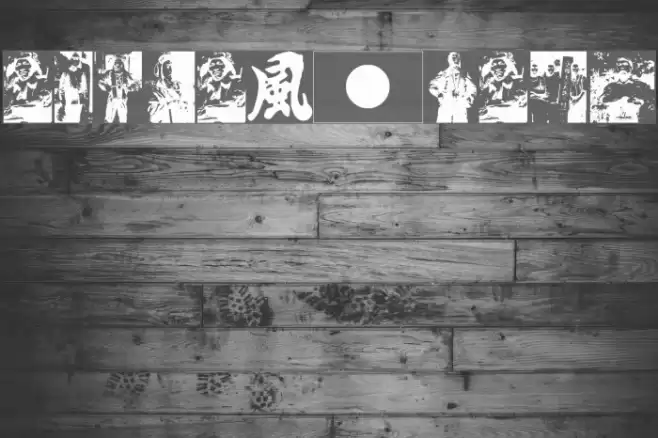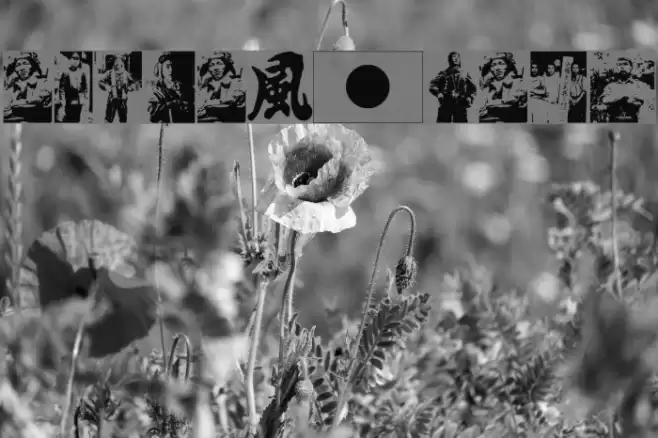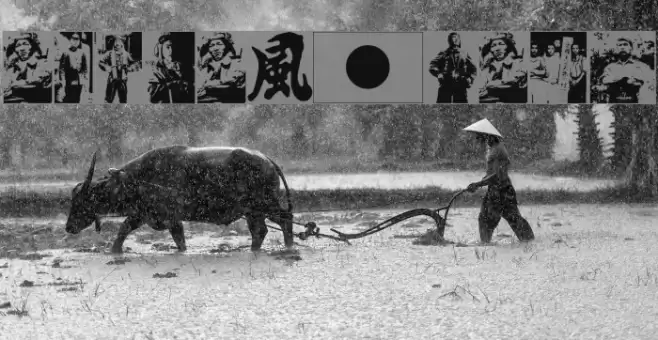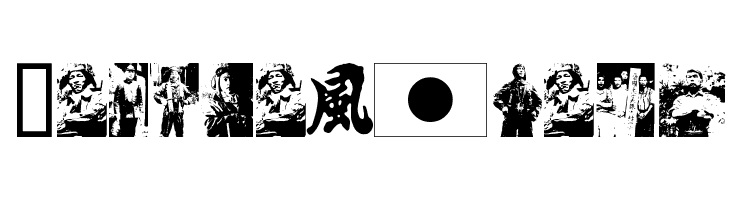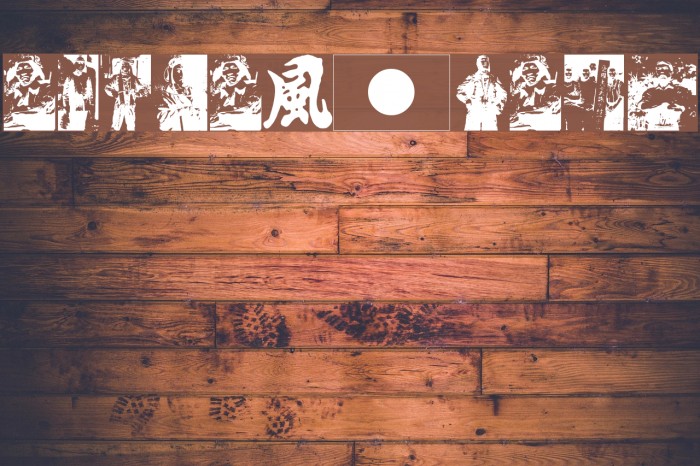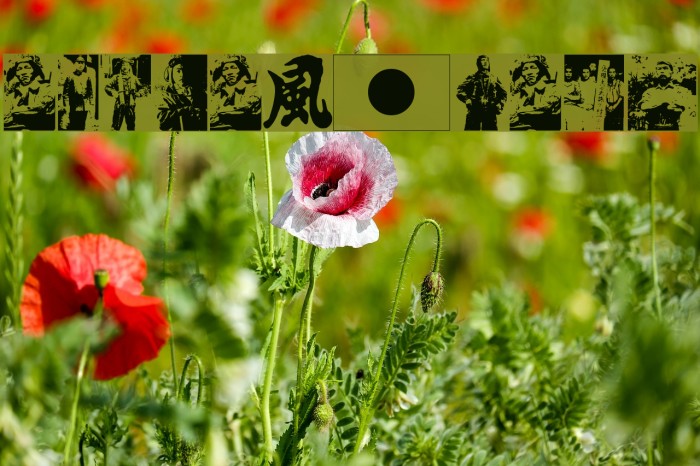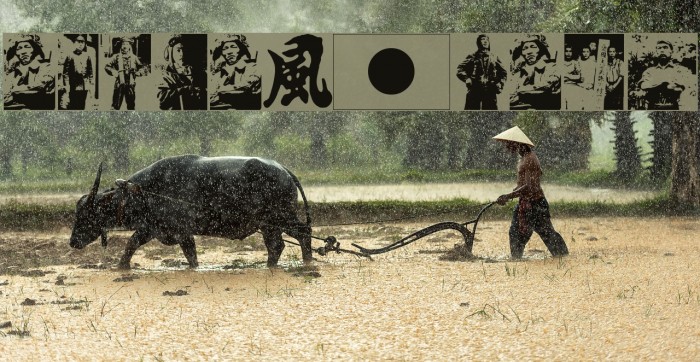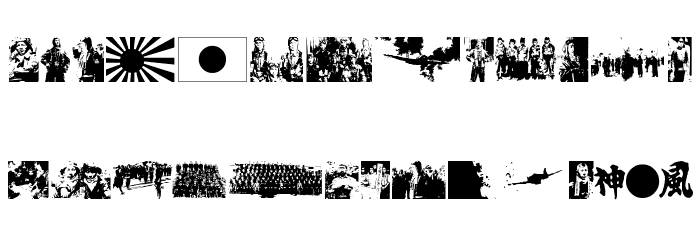
Kamikazebats Font
Kamikazebats Description
A highly decorative and thematic font composed of black-and-white photographic and illustrative images, including historical military scenes, flags, and symbols. Each character is represented by a unique, detailed image rather than traditional letterforms.
A pictorial, image-based decorative font with historical military themes from Uncategorized fonts.
- Proposed Projects: Posters, album covers, themed event materials, historical or conceptual art projects.
- Overall Style: Decorative, Thematic, Pictorial
- Use Case: Display, Posters, Artistic projects